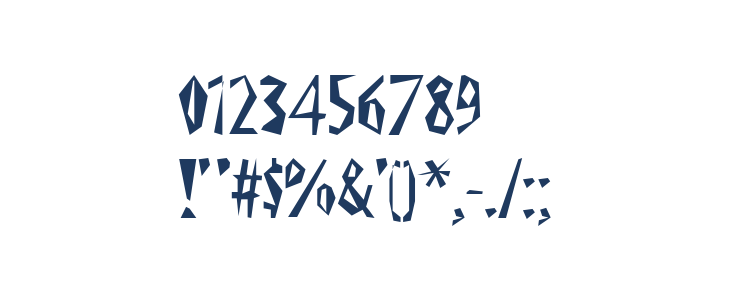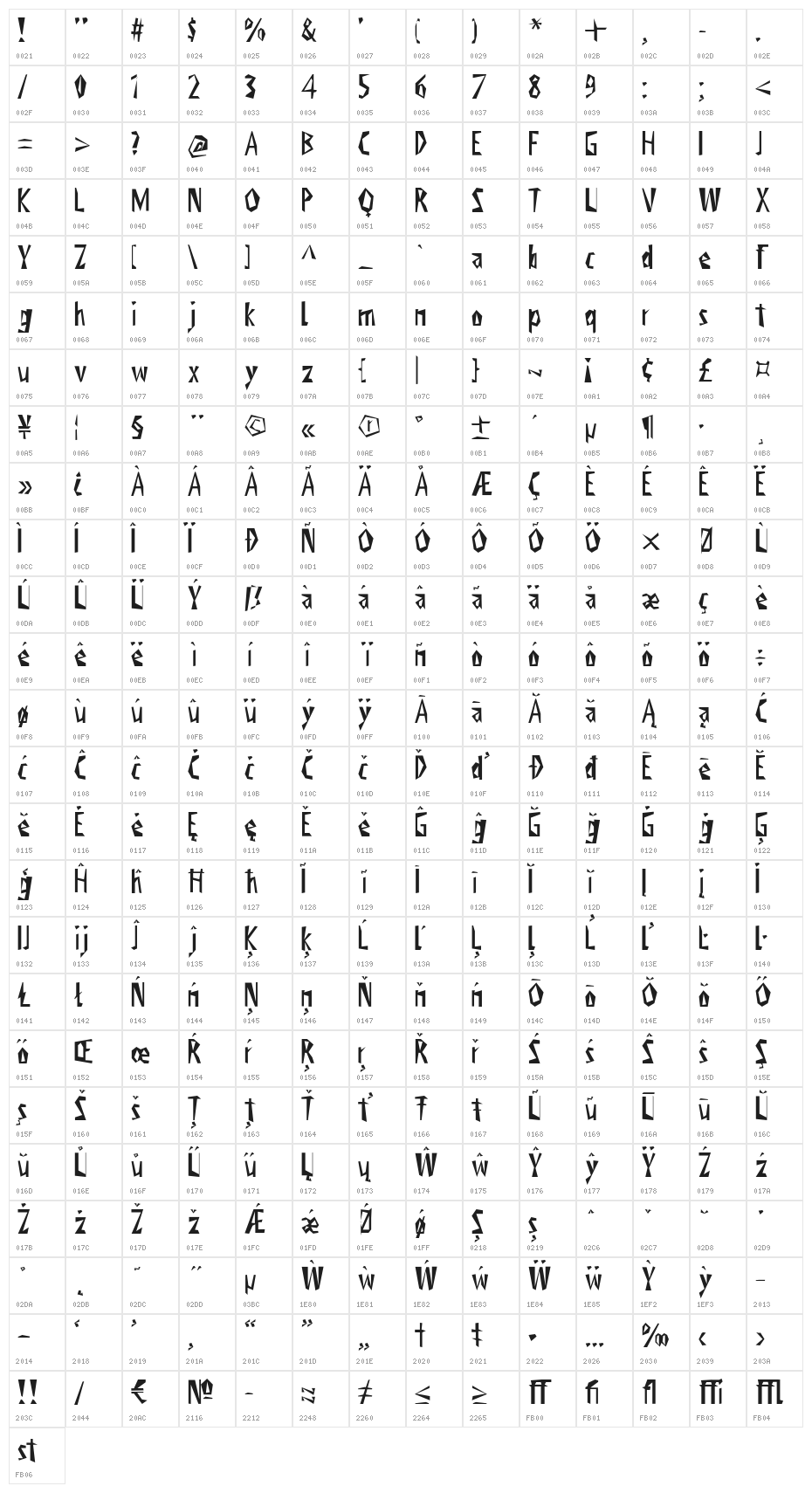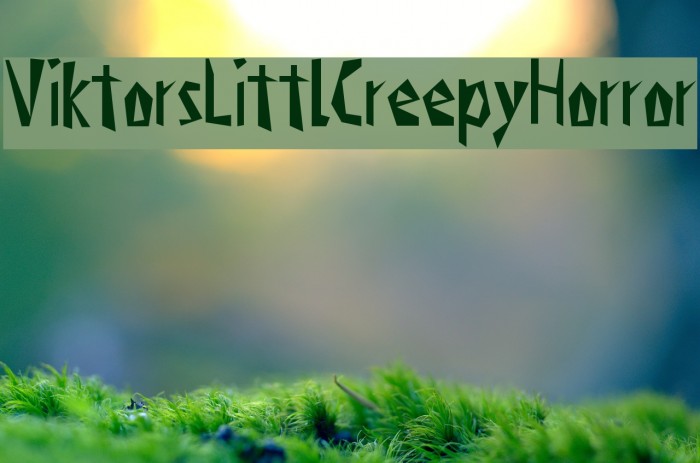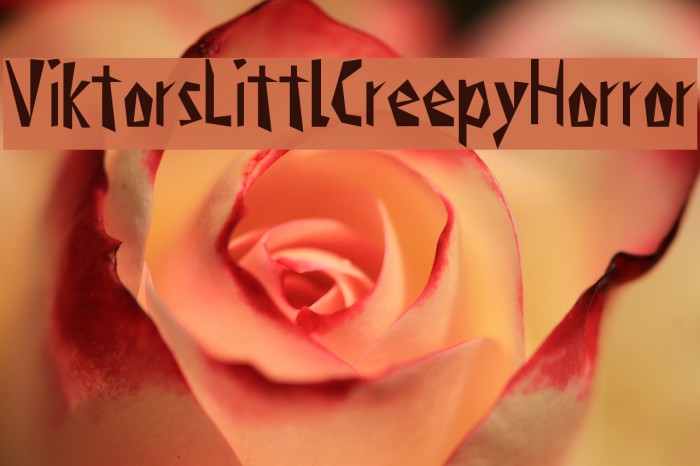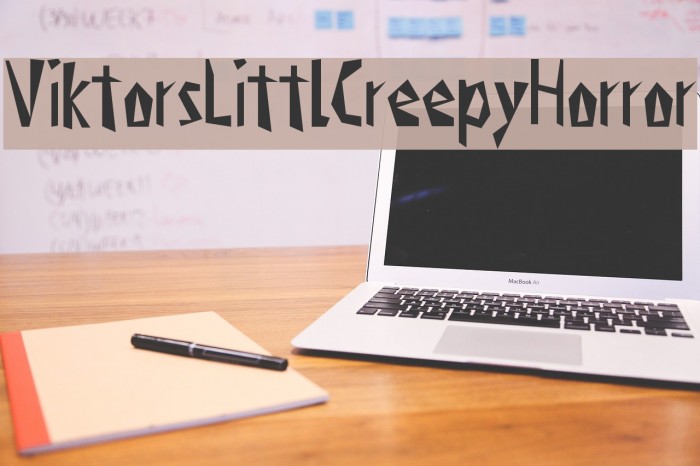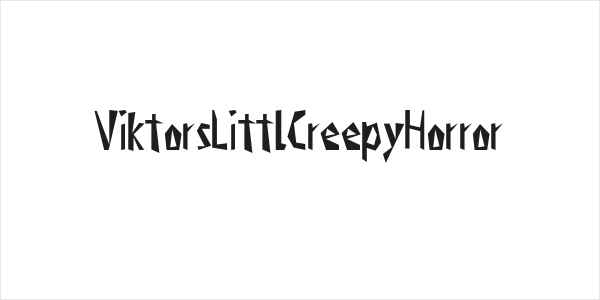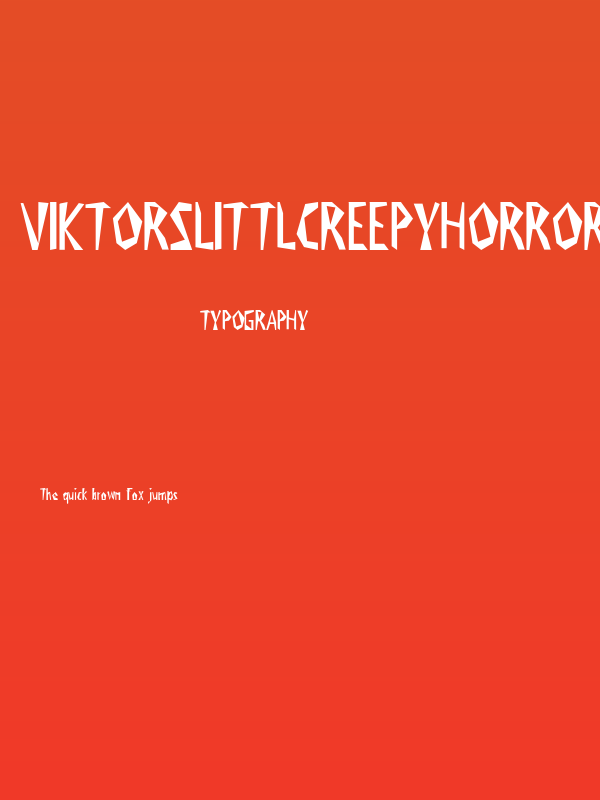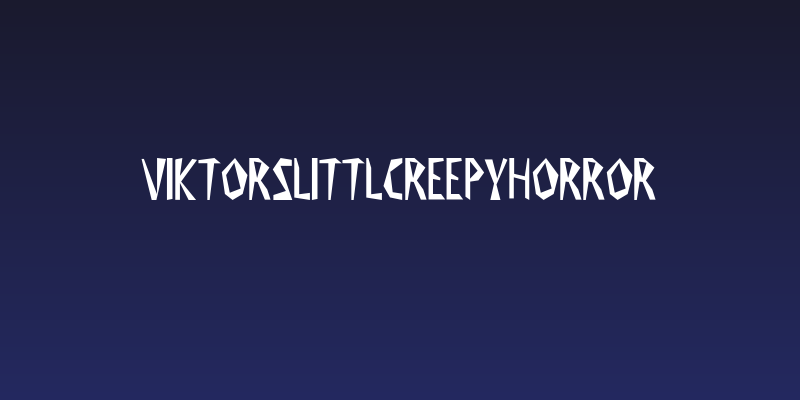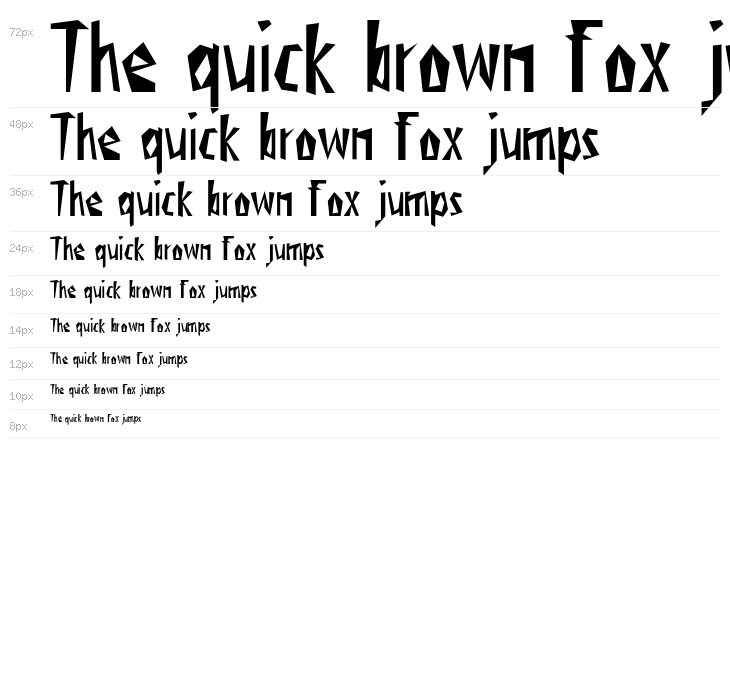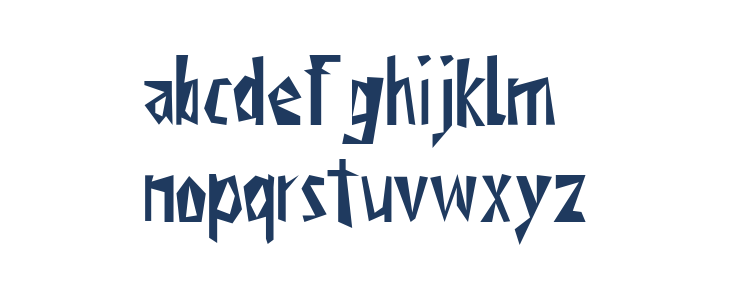
ViktorsLittlCreepyHorror Font
ViktorsLittlCreepyHorror Description
This font features a unique, jagged style that evokes a sense of unease and mystery, making it ideal for horror-themed projects. The characters are sharply angular, with irregular edges and varying line thicknesses, contributing to its unsettling appearance. The uppercase and lowercase letters maintain a consistent aesthetic, while the numerals and special characters follow the same eerie design. The font's distinctive look is perfect for creating a spooky atmosphere in posters, book covers, or Halloween-themed graphics.
| Proposed Projects | Perfect for horror movie posters, Halloween invitations, spooky book covers, and themed event flyers. |